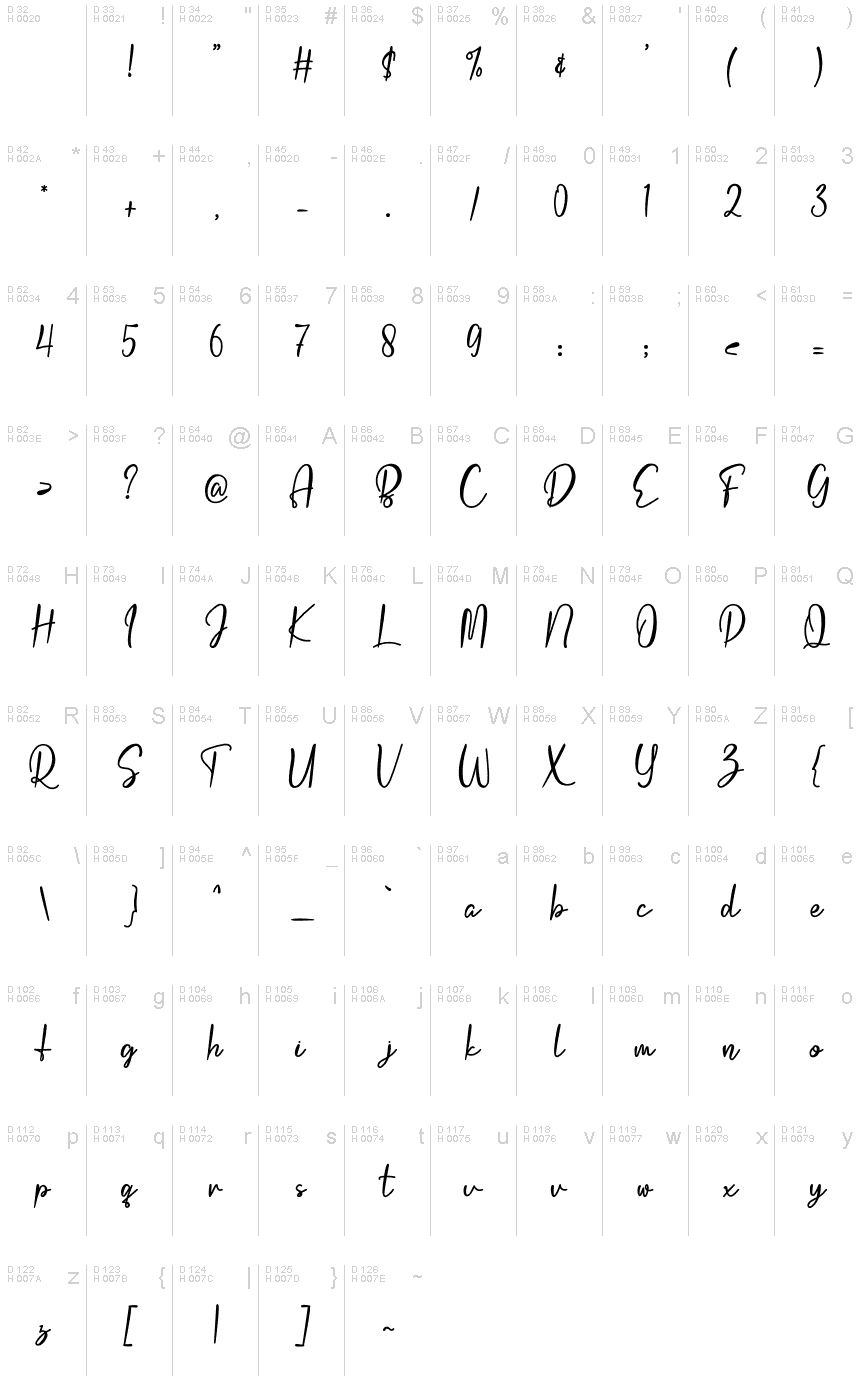
Flashing
Flashing, a stunning semi-light handwritten font designed by Inermedia Studio, is the perfect choice for your next creative project. Its playful and whimsical style brings a personal touch to any design, making it suitable for a wide range of projects including invitations, greeting cards, logos, and social media graphics. The semi-light weight adds an airy and delicate feel to your designs that is both eye-catching and easy to read. Whether you’re creating something fun and quirky or elegant and sophisticated, Flashing is sure to make a lasting impression. Download it today and let your creativity shine!